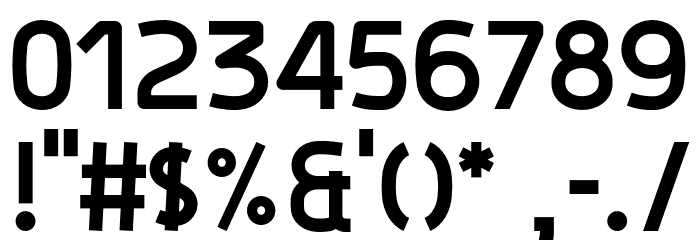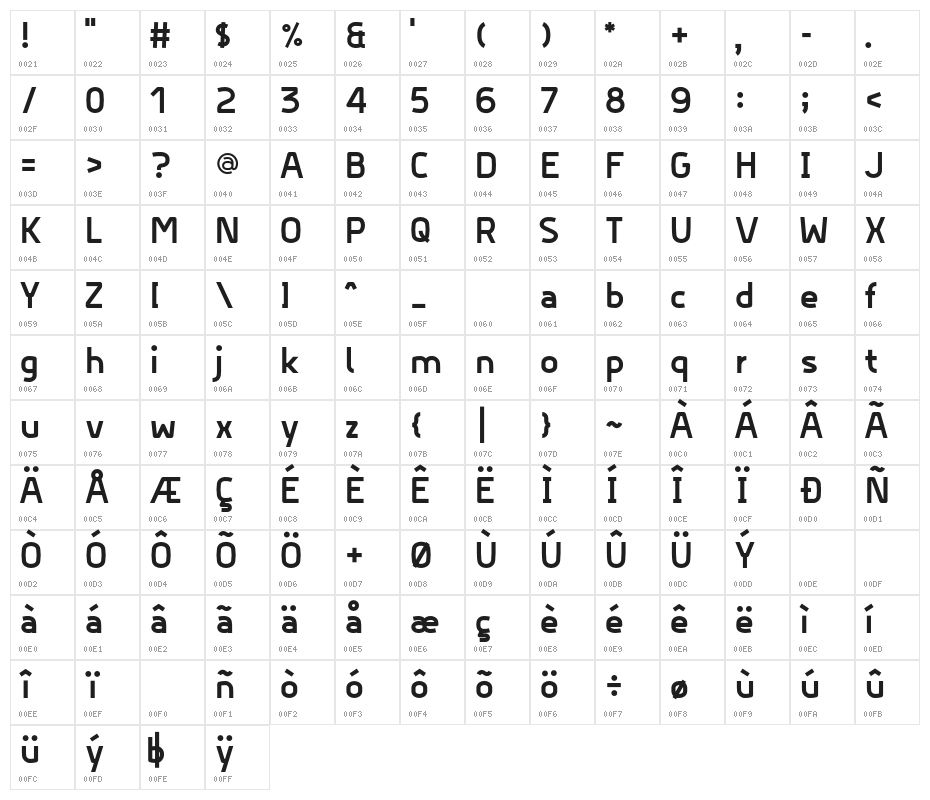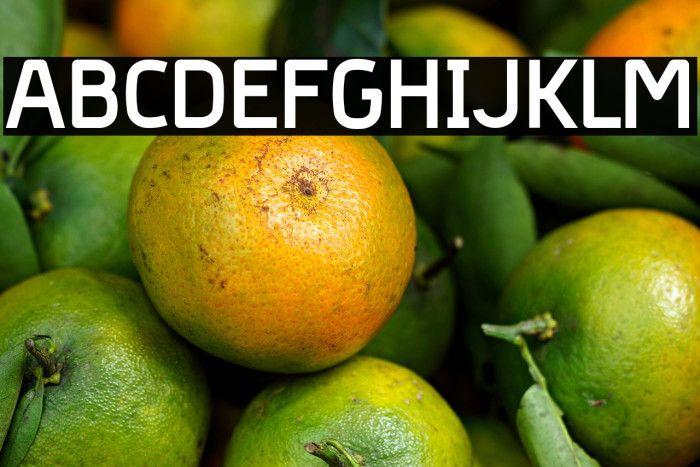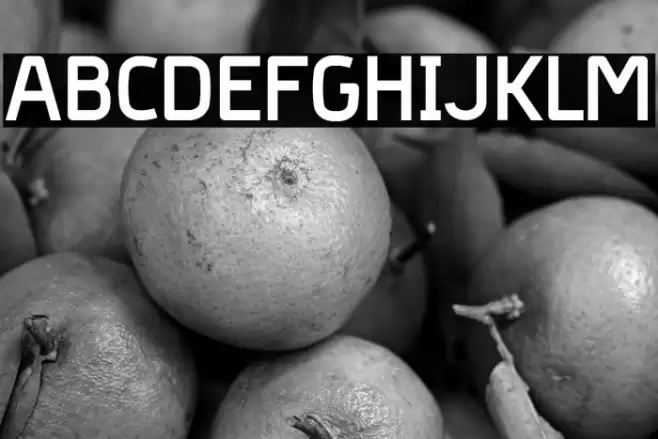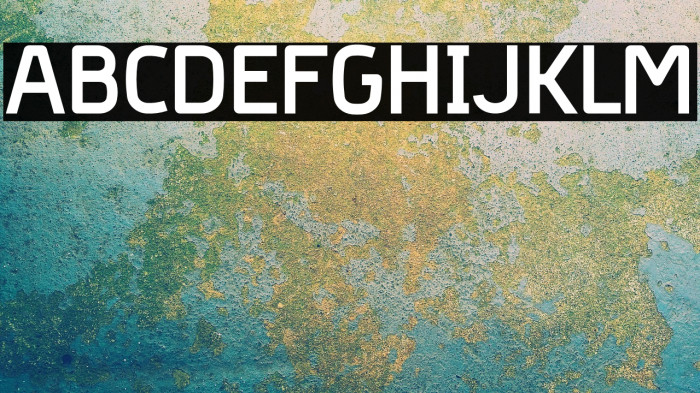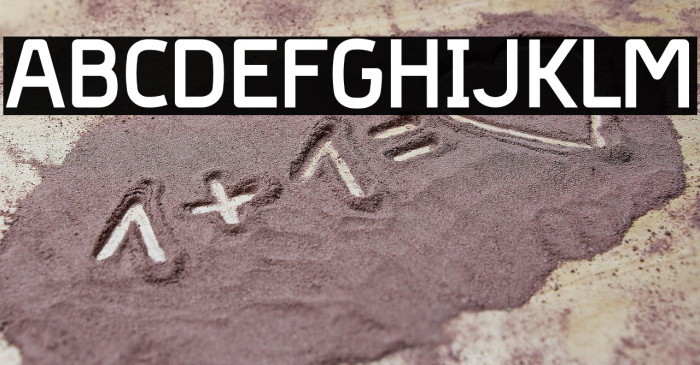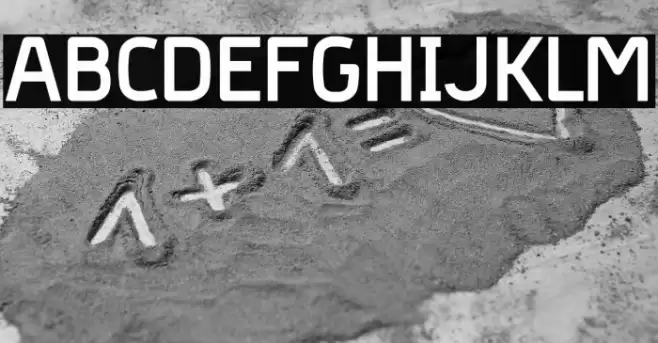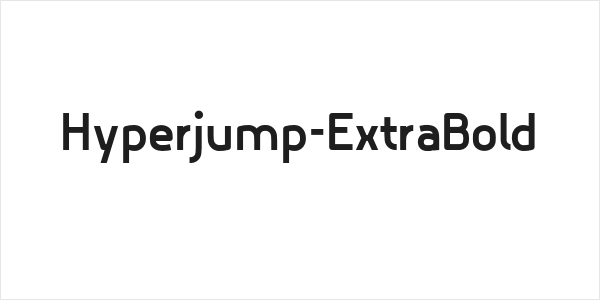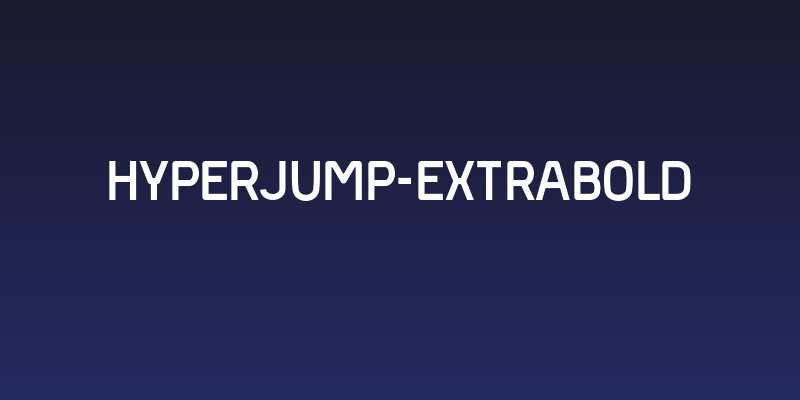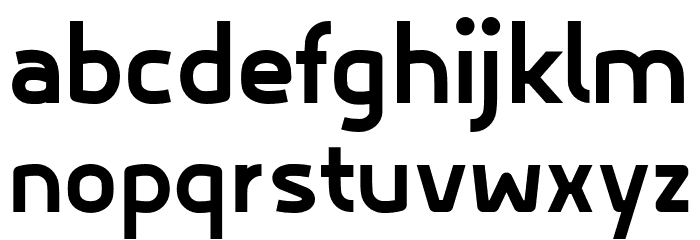
Hyperjump-ExtraBold Font
Hyperjump-ExtraBold Description
This font features a clean and modern sans-serif style with a bold weight, making it highly legible and impactful. The characters are uniformly designed with consistent stroke widths, providing a balanced and cohesive appearance. The uppercase and lowercase letters maintain a geometric structure, while the numerals are clear and straightforward. Special characters are well-integrated, enhancing the font's versatility. Its design is suitable for a wide range of applications, from digital to print media, due to its clarity and bold presence.
| Proposed Projects | Ideal for branding, advertising, headlines, and digital interfaces where clarity and impact are essential. |